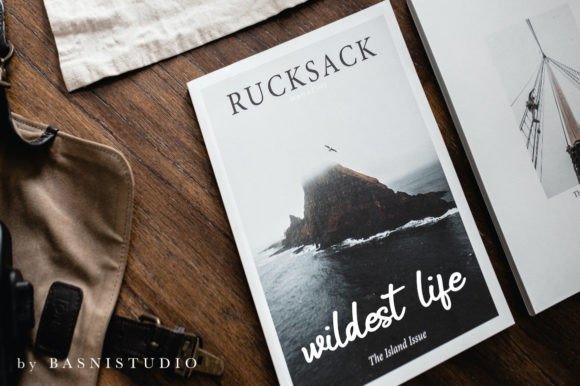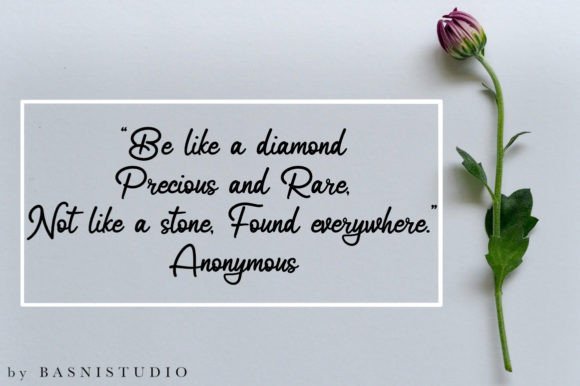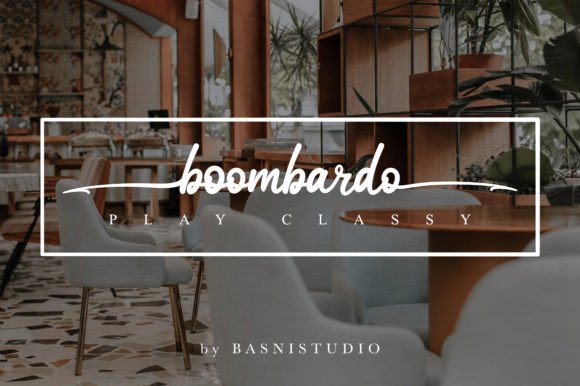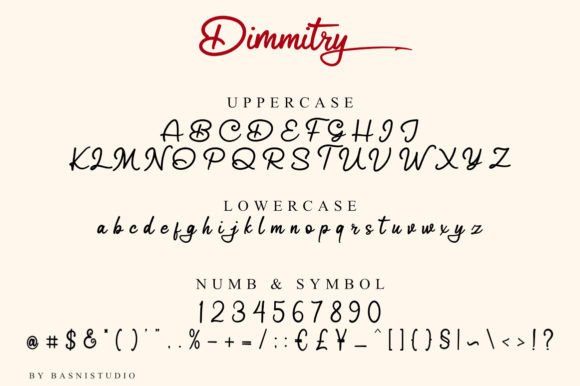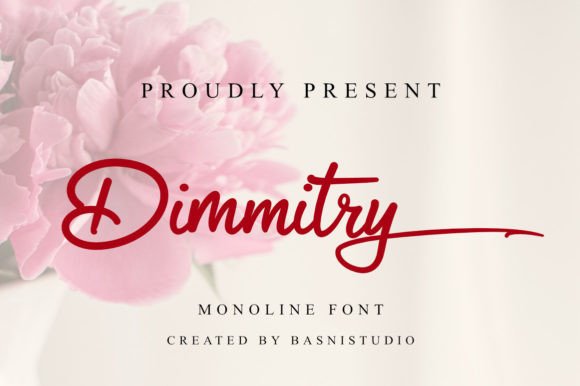
Introducing Dimmitry: The Ultimate Monoline Font for Modern Design
In the world of typography, a well-crafted font can make all the difference in elevating your design to the next level. Meet Dimmitry, a stunning monoline font that embodies the essence of cleanliness and modernity. With its meticulous attention to detail, Dimmitry is an excellent choice for designers and crafters looking to create striking branding, websites, invitation designs, and editorial projects.
What Sets Dimmitry Apart
Dimmitry boasts an impressive feature set that makes it an ideal font for a wide range of design applications. The font includes:
- A comprehensive set of upper and lower case letters, ensuring that you have all the characters you need to create stunning text.
- Multilingual support, allowing you to communicate with your audience in their native language.
- Punctuation marks, providing you with the flexibility to create complex and nuanced text.
- Captivating binding and swash variations, adding a touch of elegance and sophistication to your design.
Design and Craftsmanship
Dimmitry’s monoline design gives it a sleek and modern look that’s perfect for contemporary designs. The font’s clean lines and minimalist aesthetic make it an excellent choice for:
- Branding: Create a lasting impression with Dimmitry’s bold and modern look.
- Websites: Enhance your website’s typography with Dimmitry’s clean and legible design.
- Invitation designs: Make your invitations stand out with Dimmitry’s elegant and sophisticated look.
- Editorial projects: Add a touch of modernity to your editorial projects with Dimmitry’s sleek design.
Dimmitry offers a range of benefits for designers and crafters, including:
- Time-saving: With its comprehensive feature set, Dimmitry saves you time and effort in creating custom typography.
- Consistency: Dimmitry’s monoline design ensures consistency across your design projects, creating a cohesive brand identity.
- Flexibility: With its multilingual support and punctuation marks, Dimmitry gives you the flexibility to create complex and nuanced text.
In conclusion, Dimmitry is a versatile and modern monoline font that’s perfect for designers and crafters looking to elevate their design projects. With its comprehensive feature set, clean design, and technical flexibility, Dimmitry is an excellent choice for a wide range of design applications. Download Dimmitry today and experience the power of modern typography.
- Font Style: Monoline
- Characters: Upper and lower case letters, punctuation marks, swashes